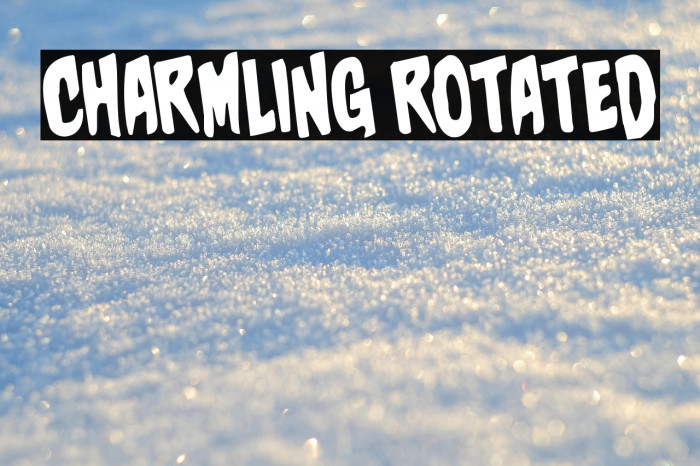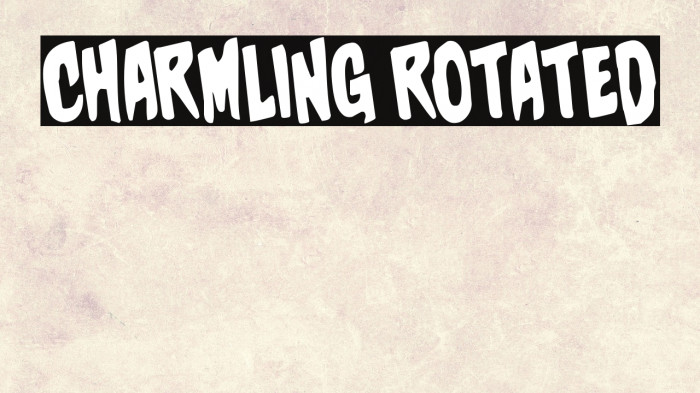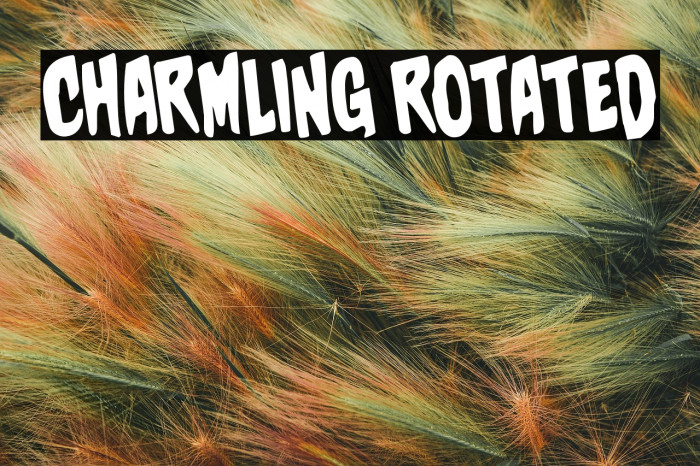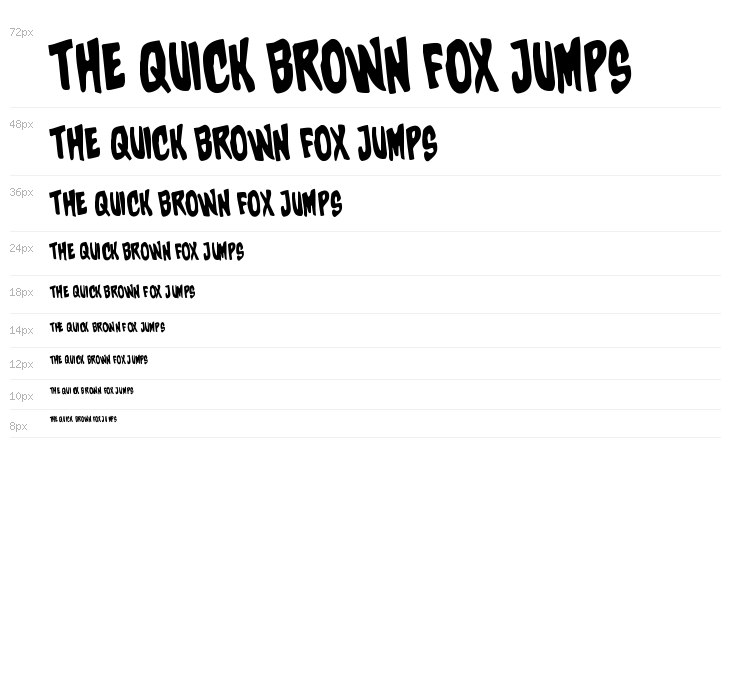
Charmling Rotated Font
Charmling Rotated Description
This font features a playful and dynamic style with a slightly irregular and hand-drawn appearance. The characters are bold and have a whimsical quality, making them stand out with a unique charm. The strokes are thick and rounded, giving the font a friendly and approachable feel. The letters are slightly tilted, adding to the casual and informal vibe. This font is well-suited for creative projects that require a touch of fun and personality. It maintains readability while offering a distinctive look that captures attention.
| Overall Style | Playful, Casual |
| Proposed Projects | Ideal for children's books, playful branding, greeting cards, and creative posters. |